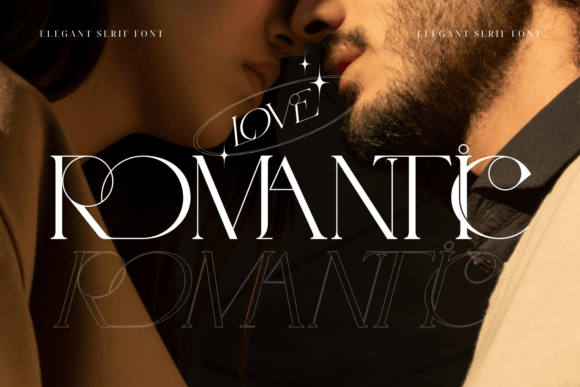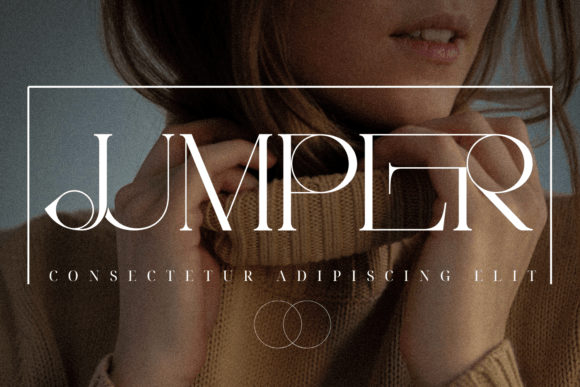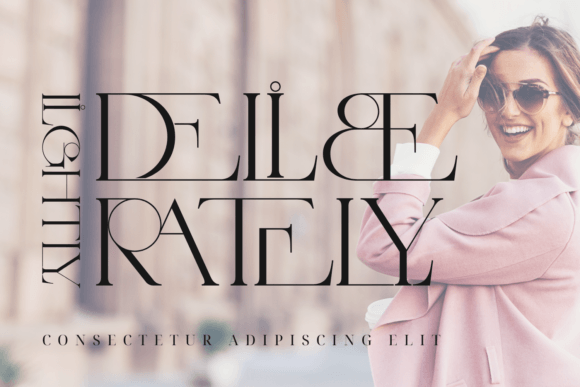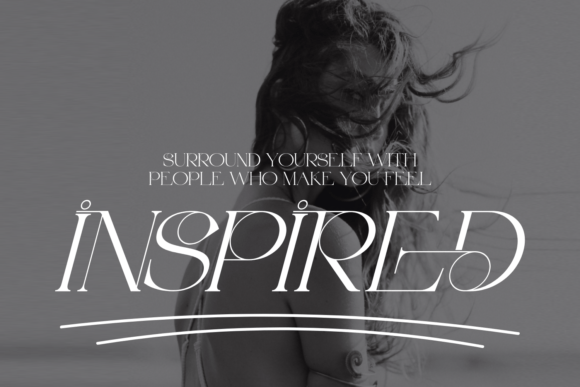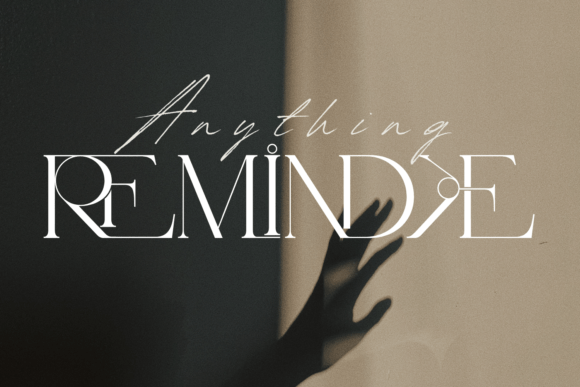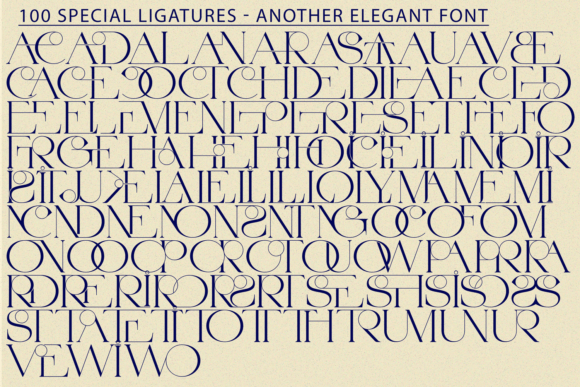
Introducing Another Elegant Font: Elevate Your Designs with Timeless Elegance
In the world of typography, few fonts manage to convey the essence of elegance and sophistication as effectively as Another Elegant Font. This modern, chic serif font draws inspiration from the classic styles of 18th-century typography, offering a unique blend of traditional charm and contemporary flair. Whether you’re a designer, craftsperson, or simply a typography enthusiast, Another Elegant Font is poised to become your go-to choice for creating stunning brand identities, logos, and editorial designs.
A Classic Style with a Modern Twist
Another Elegant Font is more than just a typeface; it’s a statement of luxury and refinement. Its serif design, characterized by delicate lines and ornate details, pays homage to the sophisticated typography of the past. Yet, its modern execution ensures that it remains versatile and highly legible across various mediums, from digital screens to print materials.
Designed for Elegance and Versatility
What sets Another Elegant Font apart is its exceptional versatility. This font is not just a tool for creating text; it’s an instrument for crafting experiences. With its extensive feature set, including OpenType features, 100 ligatures, alternates, numbers, punctuation, and support for multiple languages, designers have the flexibility to experiment and innovate. Whether you’re working on a luxury brand’s logo, an editorial piece, or a website’s typography, Another Elegant Font adapts seamlessly, always bringing an air of elegance to your designs.
Ligatures and Typography Features
One of the standout features of Another Elegant Font is its beautiful and unique ligature options. Ligatures, which are special characters that combine two or more letters into a single glyph, add a layer of sophistication and fluidity to text. With 100 ligatures at your disposal, you can create complex and visually appealing typographic arrangements that elevate your designs. Additionally, the font’s comprehensive set of typographic features, including alternates and punctuation, provides further creative control.
Perfect for a Wide Range of Design Needs
Another Elegant Font’s applications are as diverse as they are impressive. Here are a few areas where this font truly shines:
- Sophisticated Branding: Create memorable and luxurious brand identities with a font that exudes class and refinement.
- Editorial Design: Elevate magazines, books, and digital publications with elegant typography that engages readers.
- Web Typography: Enhance user experiences on websites and digital platforms with a font that offers both beauty and legibility.
- Logos and Wordmarks: Design distinctive and elegant logos that stand out in any medium.
For those interested in the technical aspects, Another Elegant Font is built with OpenType features, ensuring compatibility with a wide range of design software. It includes:
- 100 ligatures for unique typographic combinations
- Alternate characters for varied design options
- Comprehensive number sets and punctuation
- Support for multiple languages
Another Elegant Font is a masterpiece of modern typography, blending the best of 18th-century elegance with contemporary design sensibilities. Its versatility, range of features, and sheer aesthetic appeal make it an indispensable tool for designers and craftspersons looking to imbue their projects with a sense of luxury and sophistication. Whether you’re crafting a brand identity, designing an editorial masterpiece, or simply exploring the art of typography, Another Elegant Font is your key to unlocking a world of elegant design possibilities.